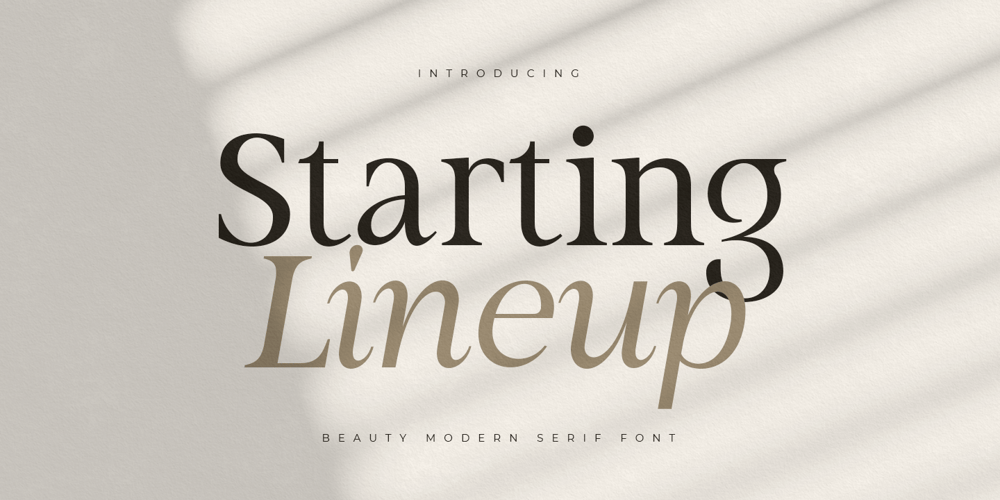
Starting Linup Font Family was designed by Zamroni Hamzah and published by Sensatype Studio. Starting Linup contains 2 styles and family package options. A Modern Beauty Serif font that we created special for elegant branding needs, with unique shape will be ready to add value of your brand. It so nice to leverage designer or product owner that need solutions to make their design look more stylish and modern. And specially for Almost font, We prepared any characters to help you create unlimited variations for your creative needs.Starting Lineup Beauty Modern Serif Font Family ready with: Ready with Regular and Italic version Preview as a inspirations that you can do with Starting Lineup font Ready with Lowercase and Uppercase characters Wish you enjoy our font. ๐